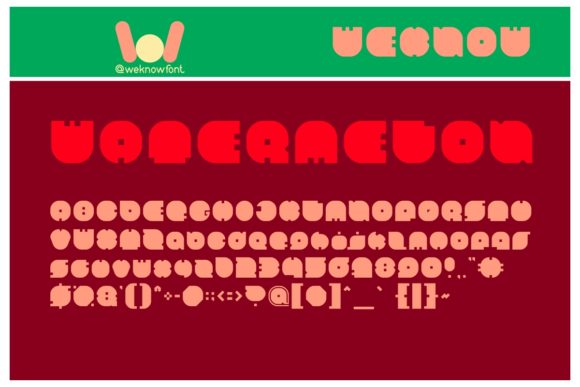
Introduction to Helmet Font
Have you ever been stuck on a design project, searching for the perfect font to capture the essence of your creative vision? I know I have. The blank page stares back, taunting me with its emptiness until suddenly, a spark of inspiration hits. It’s in those moments that I’m reminded of the importance of having a solid design resource at our fingertips.
That’s where Helmet Font comes in – a bold and chunky lettered display font that’s sure to make your next project pop. Whether you’re working on a magazine headline, game, poster, or logo, Helmet Font is the perfect addition to your design arsenal.
Not only is Helmet Font incredibly unique, but it’s also available for free download, making it an invaluable resource for designers of all levels. With its high-quality design and transparent background, you can be confident that your creative project will shine with this versatile and eye-catching font.
Key Features of Helmet Font
- High-quality design resource with a unique and creative style
- Includes multiple font styles and weights for added versatility
- Perfect for designers and artists working on creative projects, logos, and branding materials
Honest Review: Helmet Font
As a designer, I’m always on the lookout for unique and high-quality design resources to elevate my creative projects. Recently, I came across Helmet Font, and I’m excited to share my thoughts on it.
- High-quality design: Helmet Font boasts a crisp, clean design that makes it perfect for various creative projects.
- Transparent background: The font has a transparent background, which makes it easy to use and customize.
- Great for headings and titles: The font’s bold and modern style makes it perfect for headings and titles in any design project.
- Limited font styles: Helmet Font only comes in a few styles, which may limit its versatility in certain design projects.
- Not ideal for body text: While Helmet Font is perfect for headings and titles, it may not be the best choice for body text due to its bold and modern style.
Overall, Helmet Font is a great addition to any designer’s toolkit. Its high-quality design, transparent background, and free download make it an excellent resource for creative projects. While it may have some limitations, it’s definitely worth checking out.
Helmet Font
Helmet Font is a high-quality design resource that offers a unique and creative font style, perfect for any project. With a transparent background, it’s easy to customize and integrate into your design.
Using Helmet Font
Getting the Most Out of Helmet Font
For the best results, experiment with different font sizes, colors, and combinations to create a unique look. You can also use Helmet Font in conjunction with other design elements to add depth and interest.
Helmet Font is perfect for:
- Designing logos and branding materials
- Creating social media graphics and posters
- Adding a touch of creativity to presentations and documents